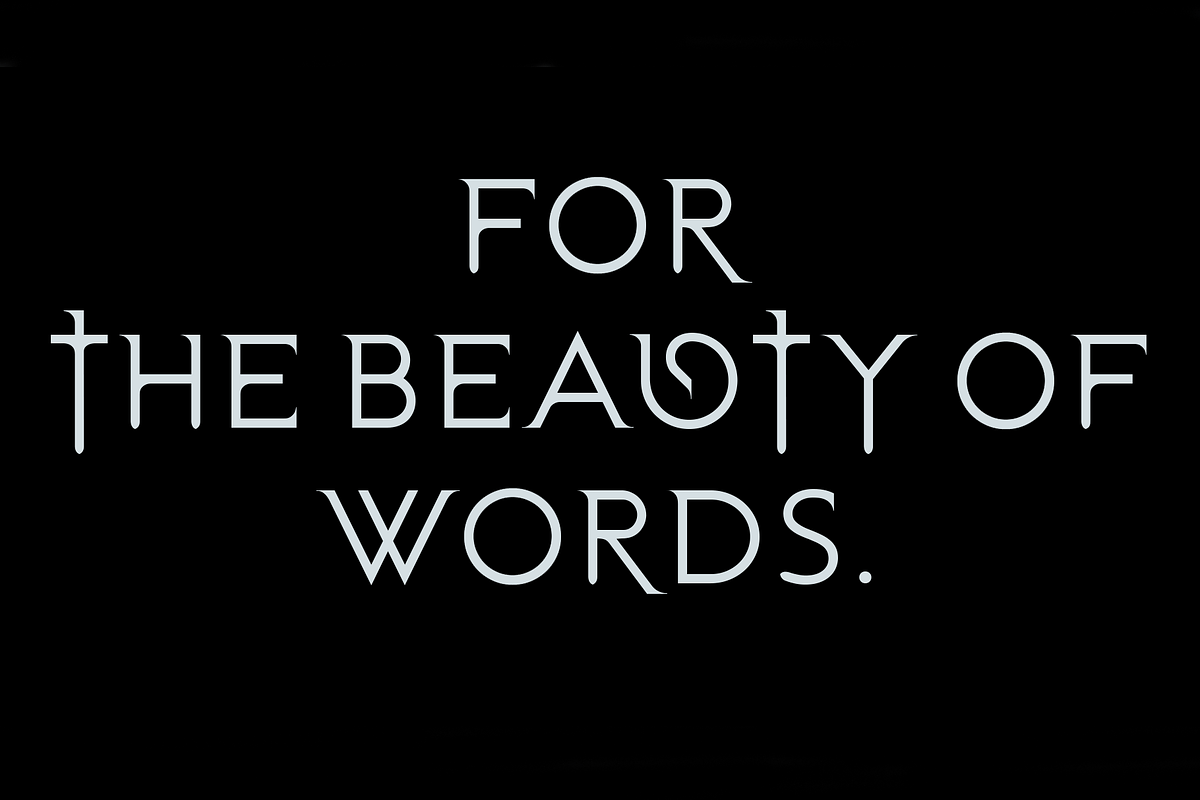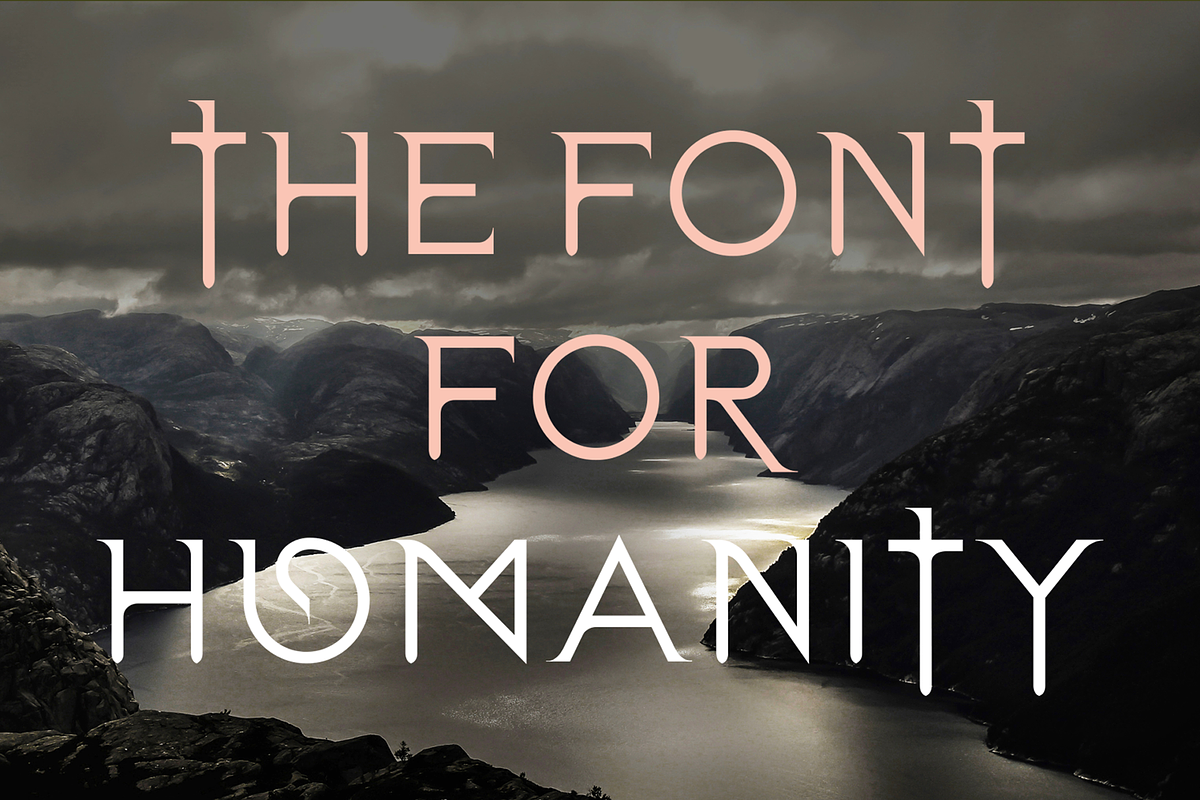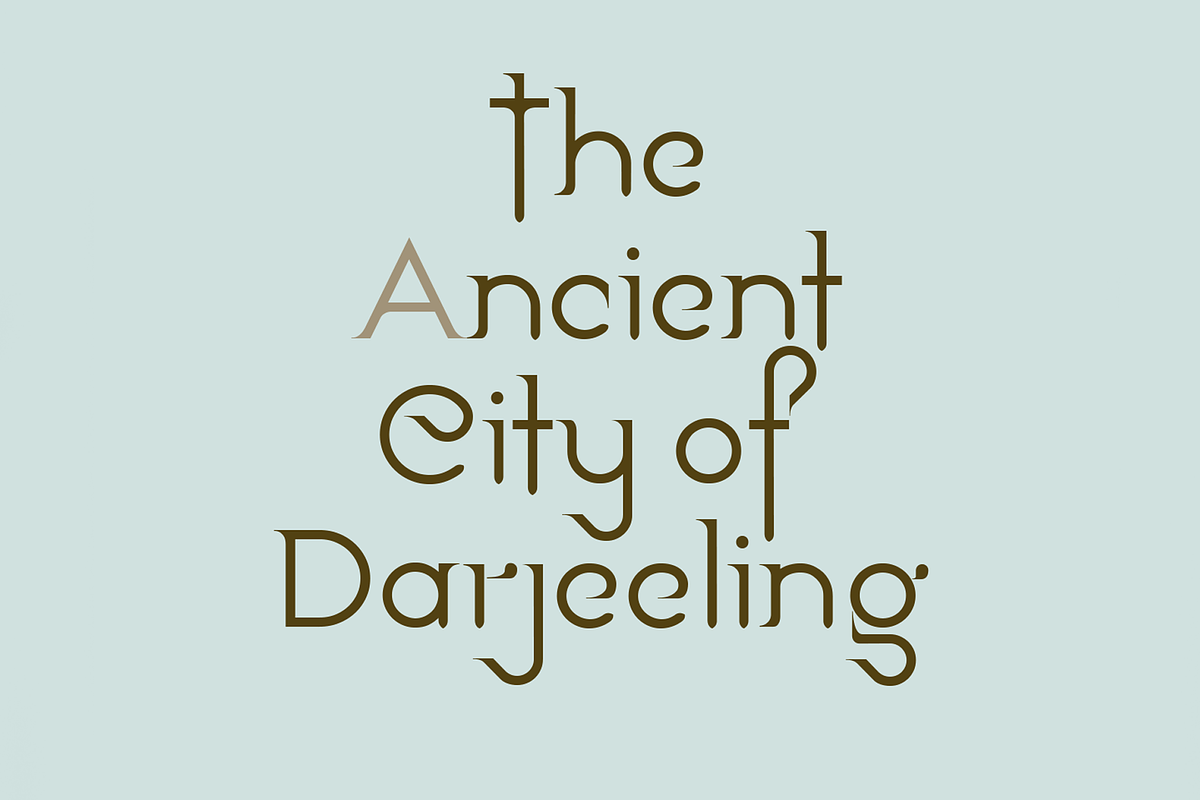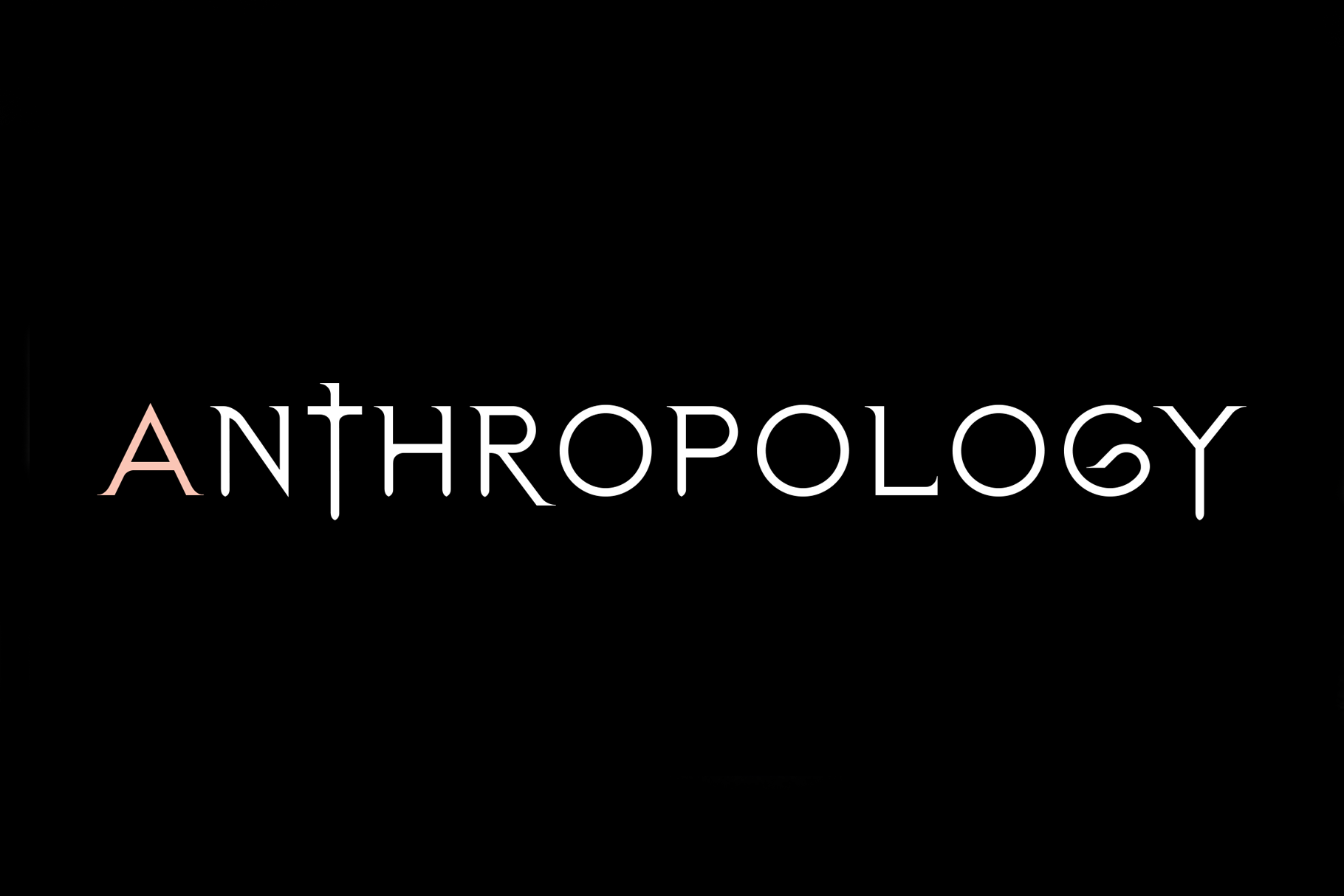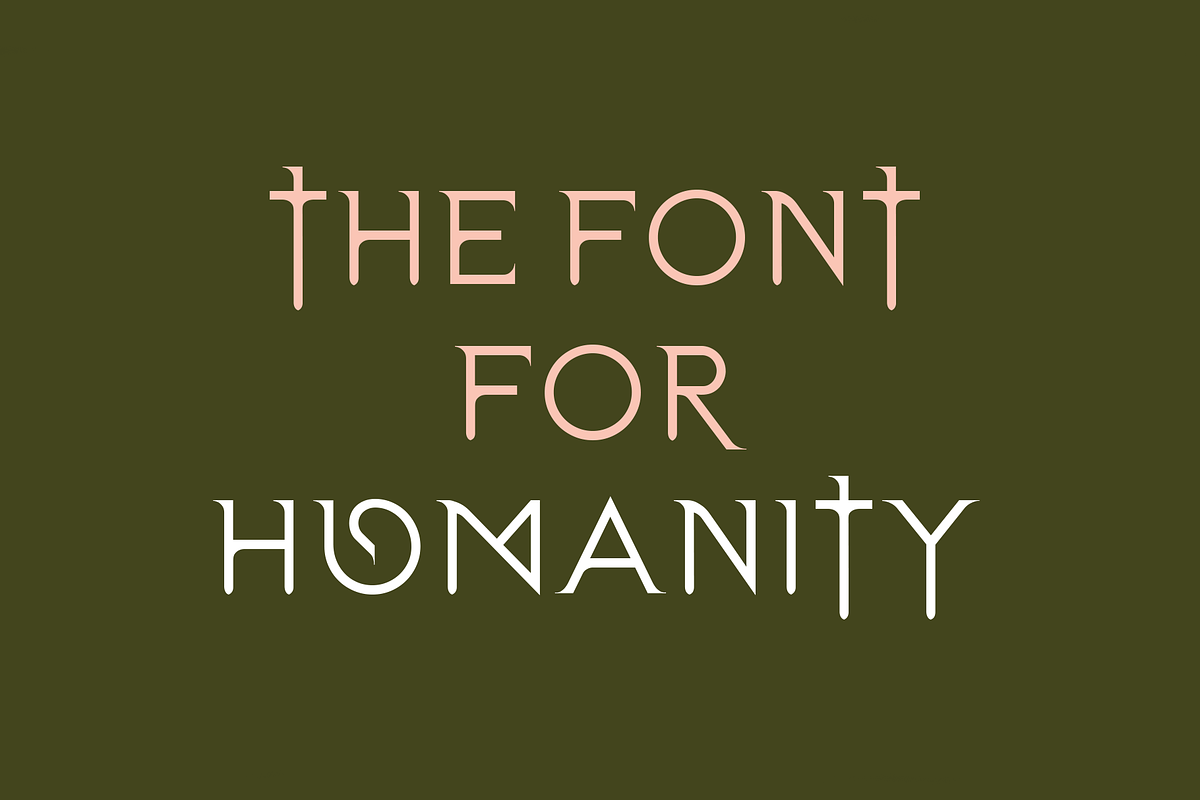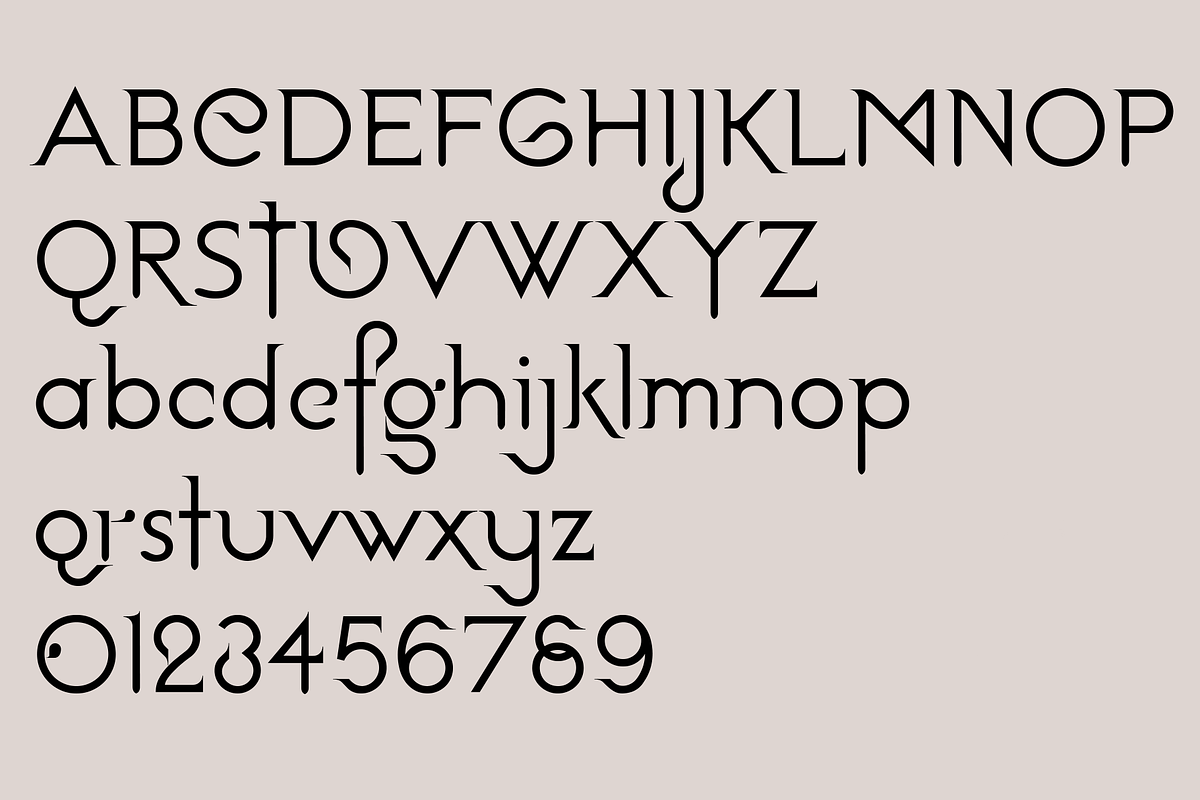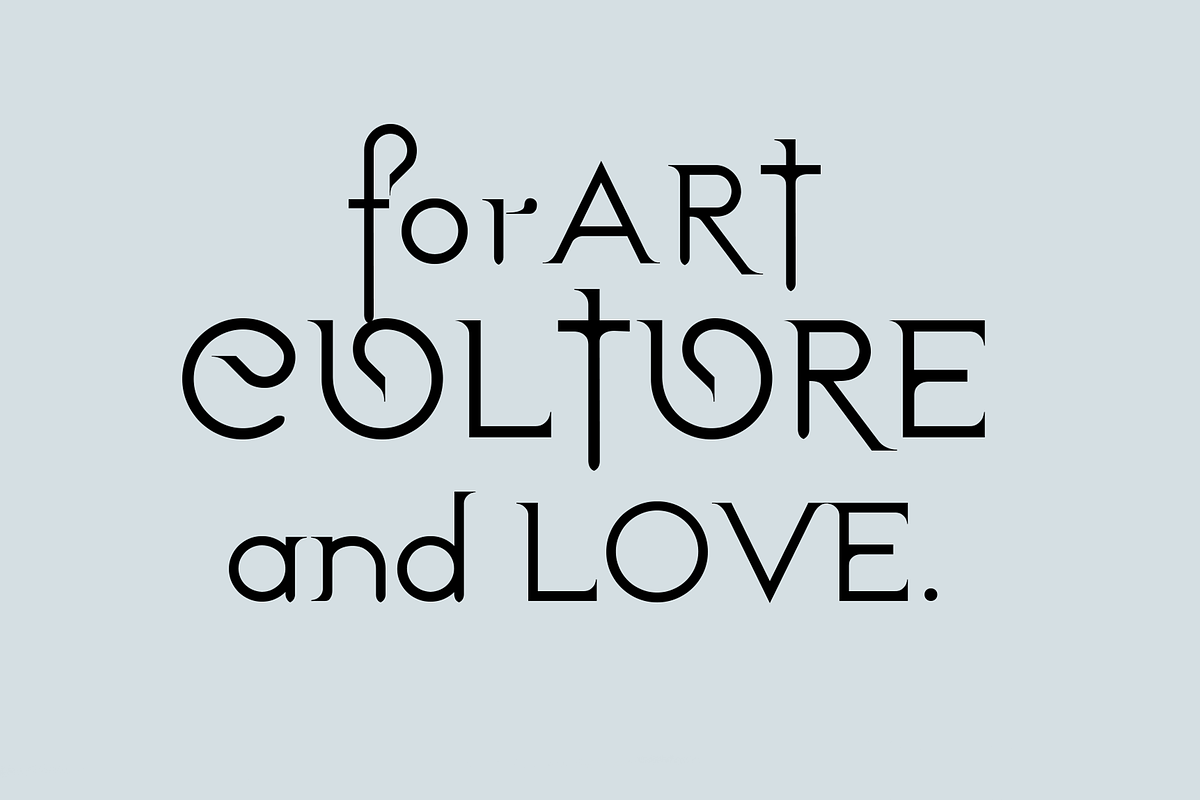
Anthropology. Modern serif font
Anthropology is another beautiful new font for designers from LostandFoundry. Anthropology is the study of humanity and with this stunning font I wanted to create a timeless design that embraced different cultures, as well as the past and the present, to truly celebrate the greatest expression of our humanity - the written word. This font, while having one foot in the past, is also very clearly a clean-lined contemporary serif font that can be used across many of your branding and design projects. In logos, headlines and titles, in packaging design, wedding designs and online in websites, blogs, vlog titles, Youtube creator titles and social media post titles. Add Anthropology to your font library and use it whenever you need a font with true character and expressiveness. Supports French, German and other European languages.